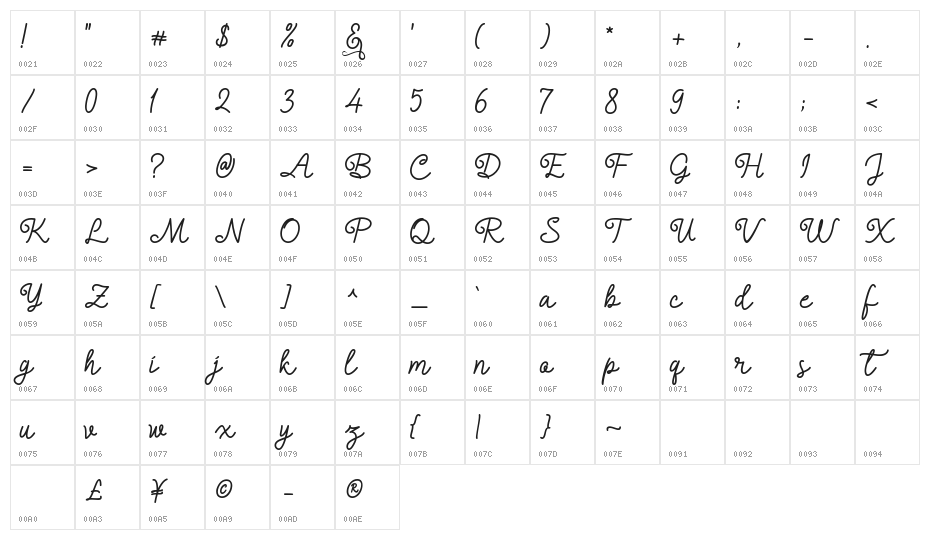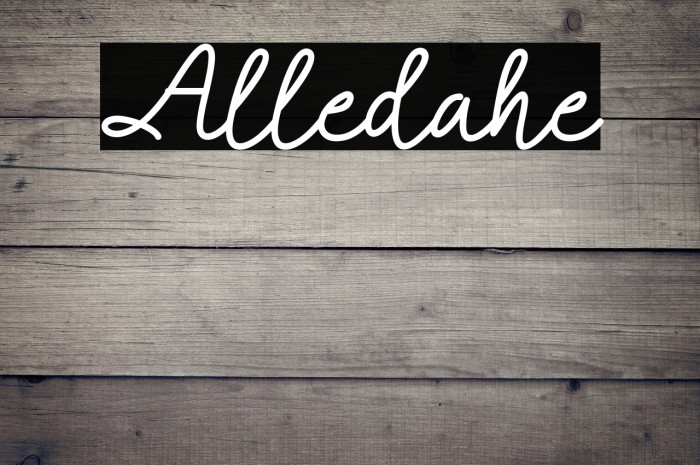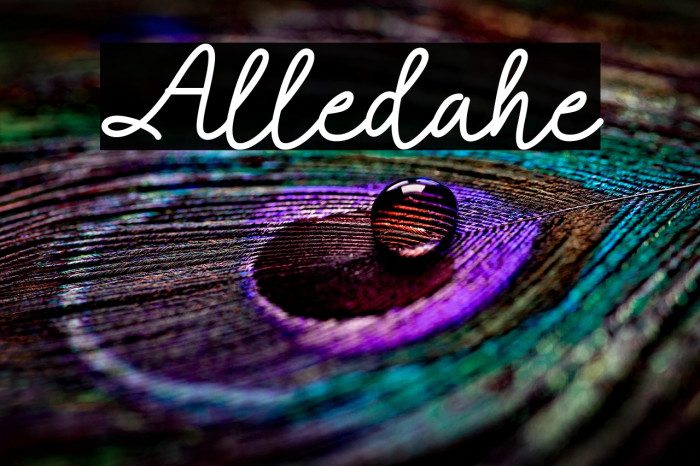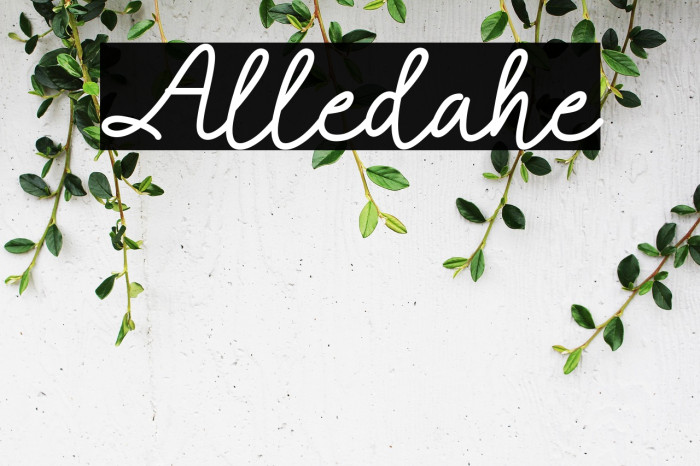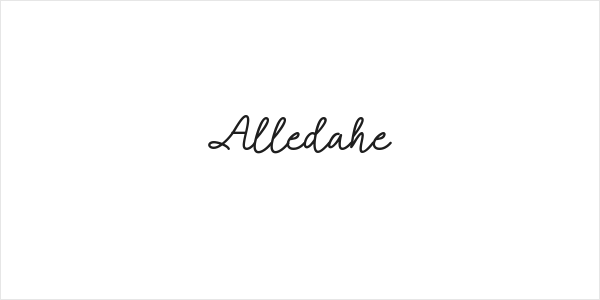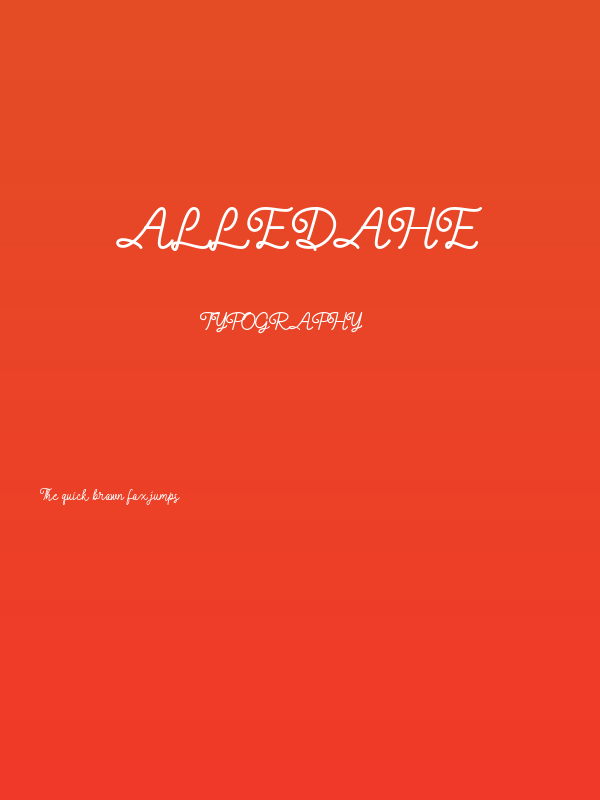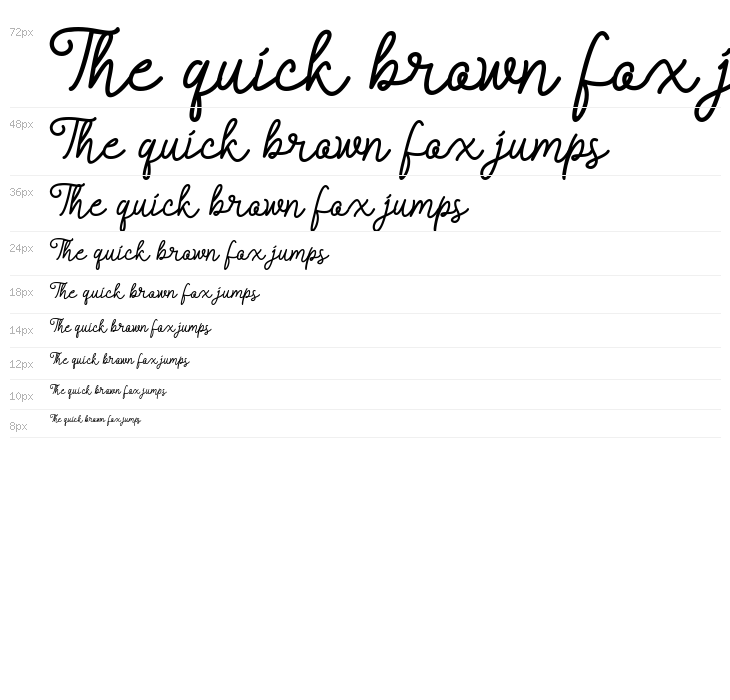
Alledahe Font
Alledahe Description
This font features a flowing, cursive style that mimics elegant handwriting. The uppercase letters are slightly more ornate, with loops and curves that give them a sophisticated flair. The lowercase letters maintain a consistent slant and are connected, enhancing the script-like appearance. Numbers and special characters are designed to match the overall aesthetic, with smooth curves and a harmonious flow. The font's design is both stylish and readable, making it suitable for a variety of creative applications.
| Overall Style | Elegant, Decorative |
| Use Case | Headlines, Invitations, Decorative text |
| Proposed Projects | Ideal for wedding invitations, greeting cards, personal branding, and decorative projects. |